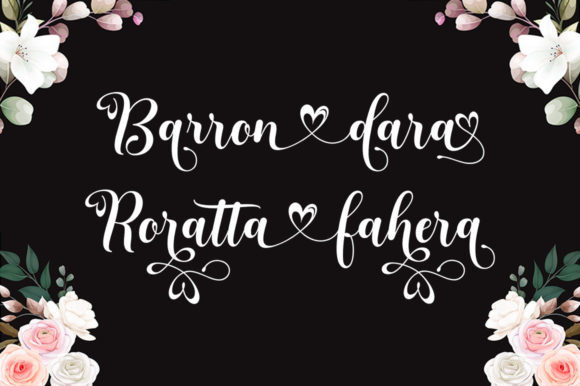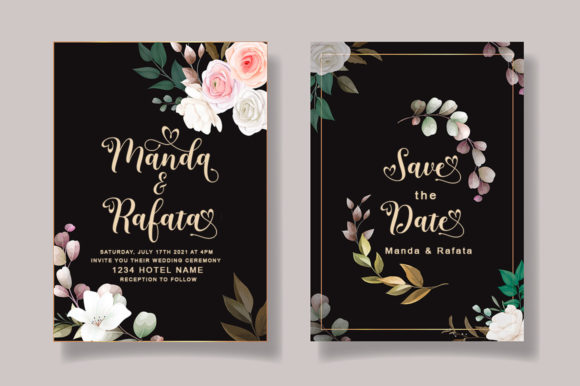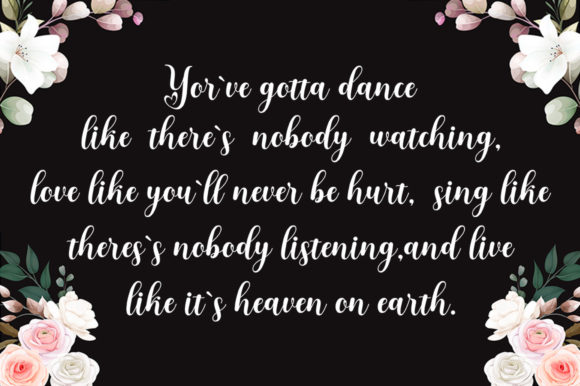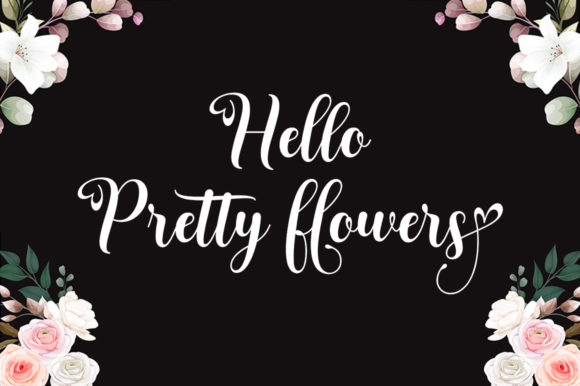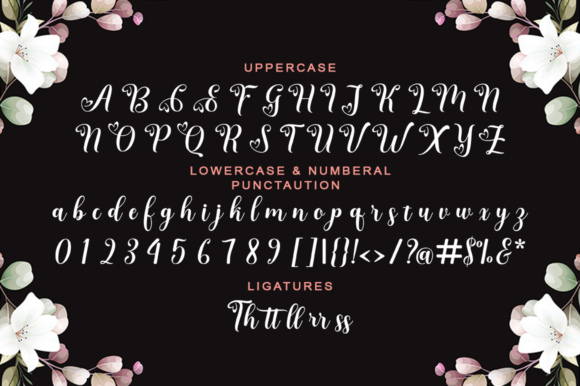
Introduction to Manda Rawles Font
Have you ever been working on a creative project, pouring your heart and soul into it, only to feel like something is missing? A spark that will bring your design to life? For many designers, the answer lies in the perfect font – one that can elevate their work and make it truly stand out. That’s where the Manda Rawles Font comes in, a stunning script font that has the potential to take your creations to the next level.
With its high-quality design and PUA encoding, accessing all the glyphs and swashes is a breeze, allowing you to create stunning designs with ease. Whether you’re working on a project that requires a transparent background or a design that needs a touch of elegance, the Manda Rawles Font is an invaluable resource that’s sure to impress. And the best part? It’s available for free download, making it a must-have for any designer looking to upgrade their design library.
As a valuable addition to any design resource, the Manda Rawles Font is a game-changer for creatives of all levels. Its versatility and high-quality design make it an essential tool for bringing your vision to life, and with its free download option, there’s never been a better time to give it a try.
Key Features of Manda Rawles Font
- High-quality, professional font design suitable for various creative projects.
- Comes in a transparent background format, allowing for easy customization and versatility.
- Features a unique, elegant design with subtle nuances, making it perfect for a wide range of applications.
- Designed to be highly legible, even at small font sizes, making it ideal for presentations, documents, and other materials.
Honest Review: Manda Rawles Font
I recently came across the Manda Rawles Font, a free download that caught my attention due to its unique and quirky aesthetic. As a designer, I appreciate high-quality design resources that can elevate my creative projects. In this review, I’ll share my thoughts on what works well and what might be improved.
- ✨ Unique character styles: The Manda Rawles Font features a range of distinct character styles, making it perfect for adding a touch of personality to my designs.
- ✨ High-quality glyphs: The font’s glyphs are well-designed and easy to read, even at small sizes.
- ✨ Transparent background: The font’s transparent background allows for seamless integration with other design elements.
- ⚠️ Limited language support: The font only supports a limited number of languages, which might be a concern for designers working on international projects.
- ⚠️ Not suitable for body text: Due to its quirky aesthetic, the font might not be the best choice for body text, but it excels as a headline or accent font.
Overall, I’m impressed with the Manda Rawles Font’s unique character and high-quality design. While it has some limitations, it’s a great addition to my design resource library, and I’m excited to experiment with it on future creative projects.
Tips for Getting the Most Out of Manda Rawles Font
For the best results, use Manda Rawles Font in combination with other design elements, such as images or graphics. Experiment with different font sizes, colors, and styles to create unique and eye-catching designs. With a little creativity, Manda Rawles Font can help take your design projects to the next level.
Manda Rawles Font is perfect for a wide range of design projects, including social media graphics, logos, flyers, presentations, and documents. Its high quality and transparent background make it ideal for creating professional-looking designs that stand out from the crowd.